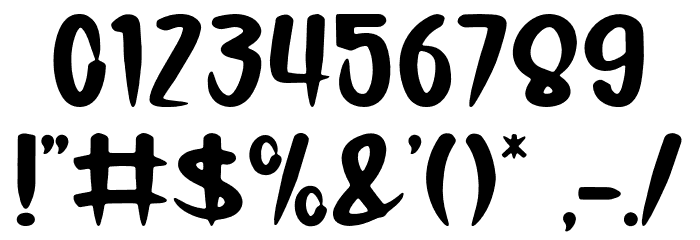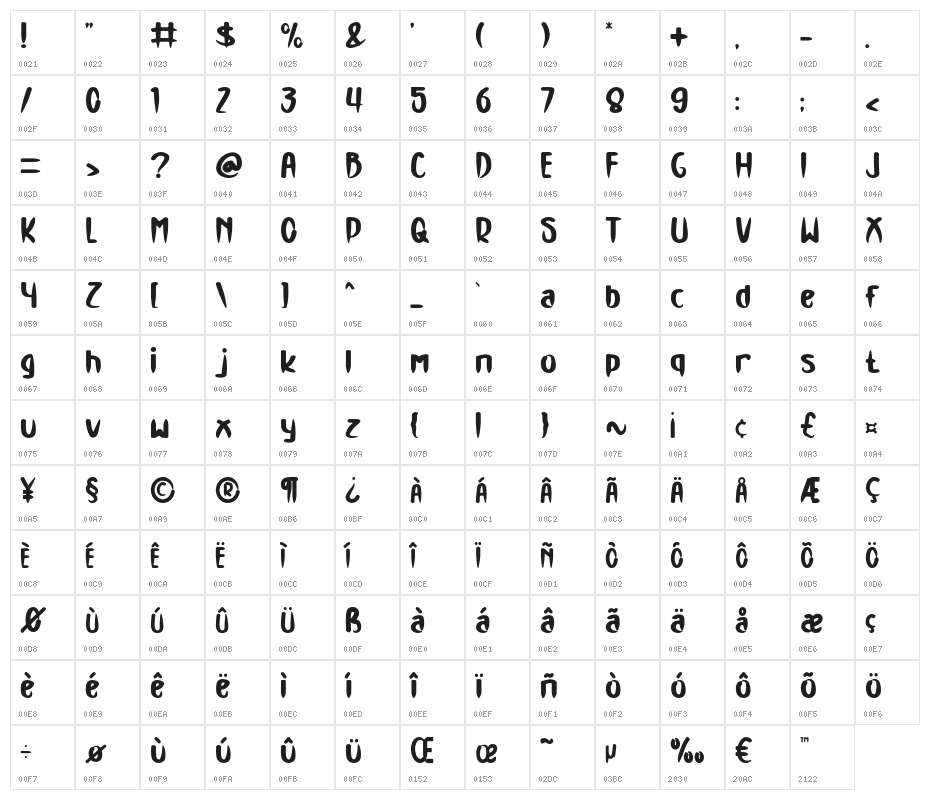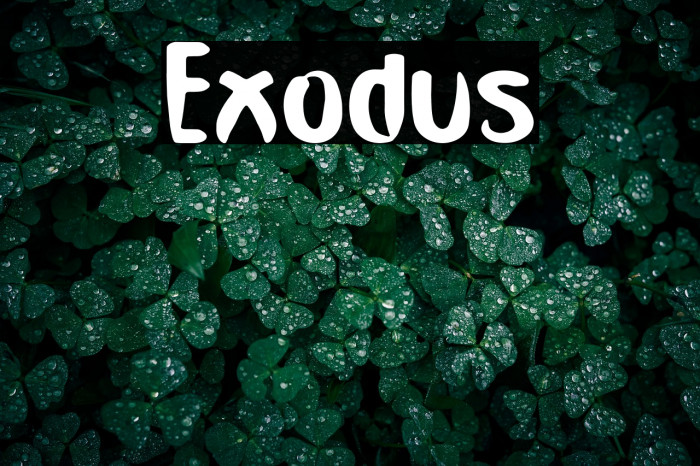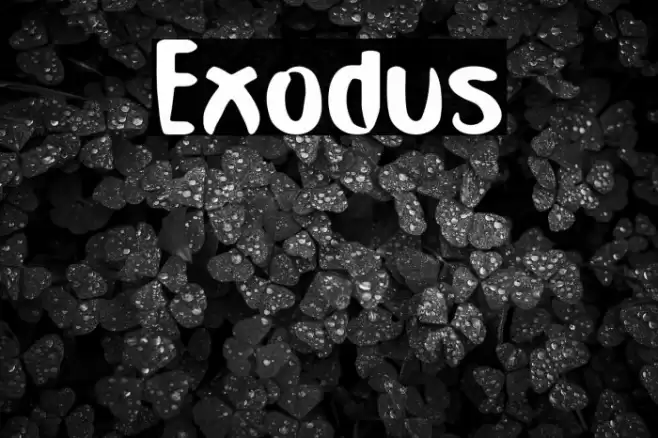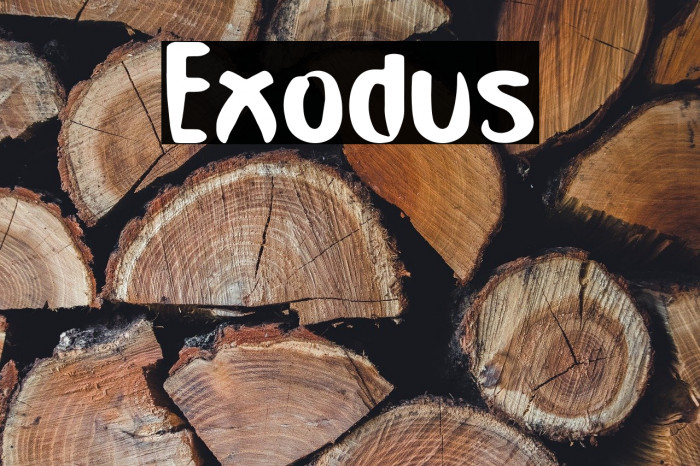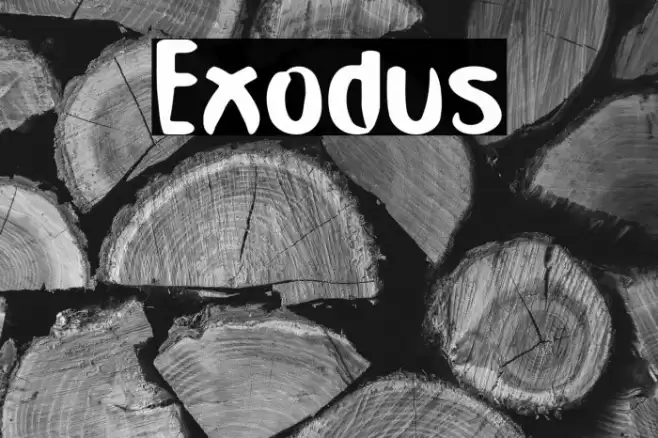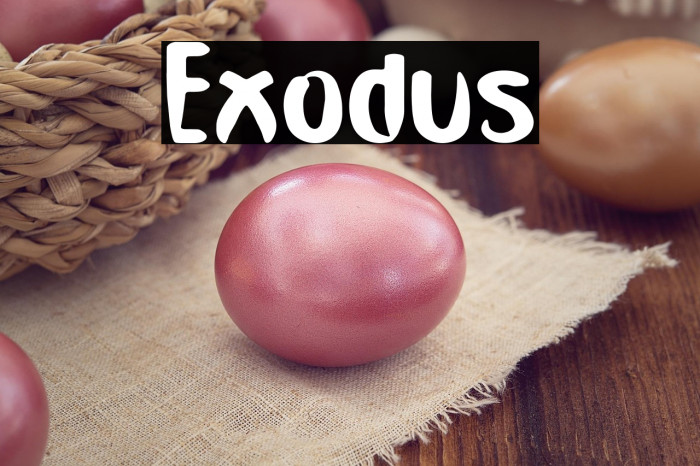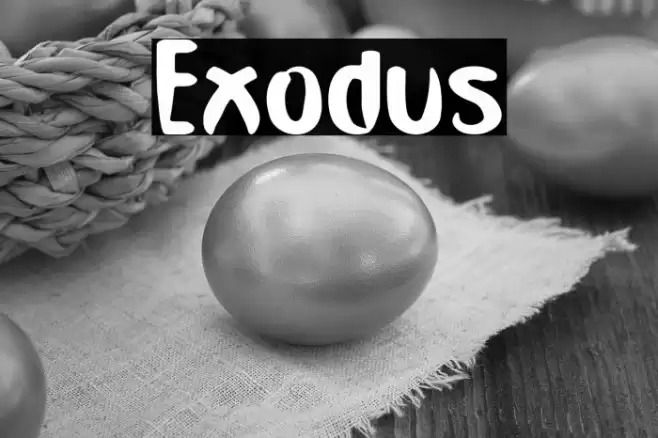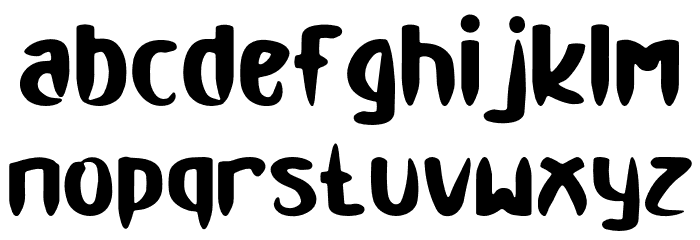
Exodus Font
Exodus Description
This font features a bold and playful style with a handwritten appearance. The letters are rounded and slightly irregular, giving it a casual and friendly look. The uppercase and lowercase letters maintain a consistent style, with a noticeable thickness that adds to its boldness. Numbers and special characters are designed to match the overall aesthetic, making them easily recognizable and cohesive with the alphabet. The font's unique character shapes and whimsical flair make it stand out, perfect for creative and informal projects.